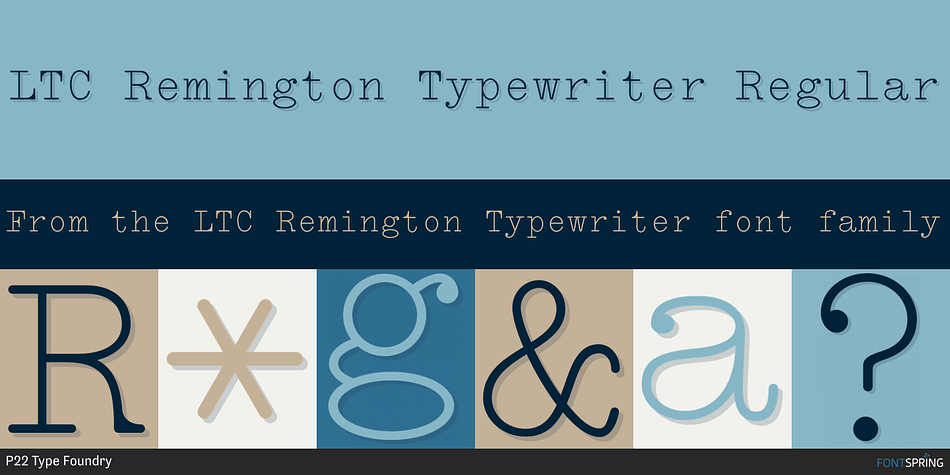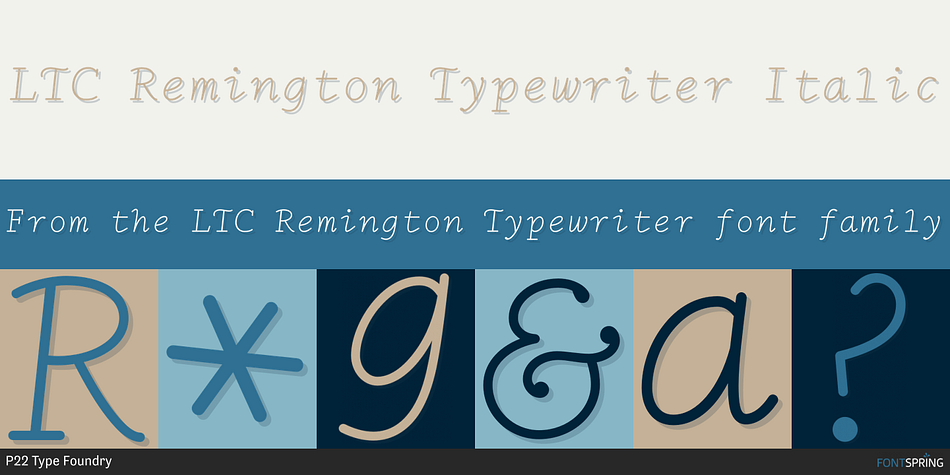
Designed by Frederic W. Goudy and Paul Hunt, LTC Remington Typewriter is a typewriter font family. This typeface has two styles and was published by P22 Type Foundry.
The original designer of Remington Typewriter is unknown. It was one of the earliest Lanston Monotype designs. The italic was designed by Frederic Goudy in 1927. His approach was to make an unconventional typewriter form that looked well spaced even though all letters shared the same width. The Pro version includes extensive language support including Greek and Cyrillic.